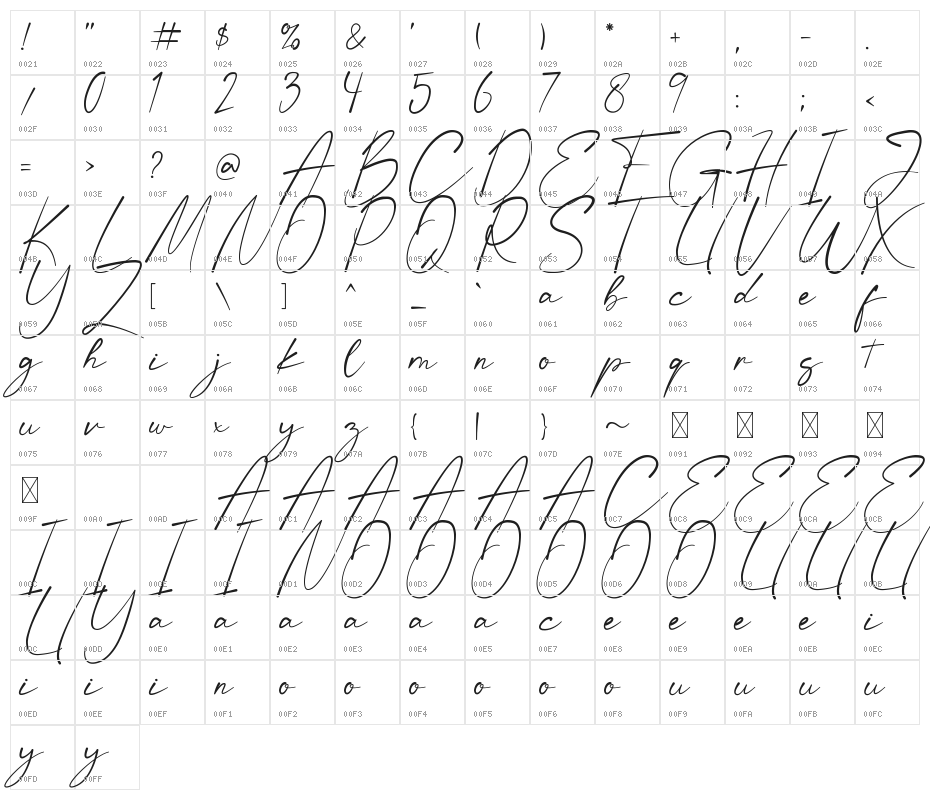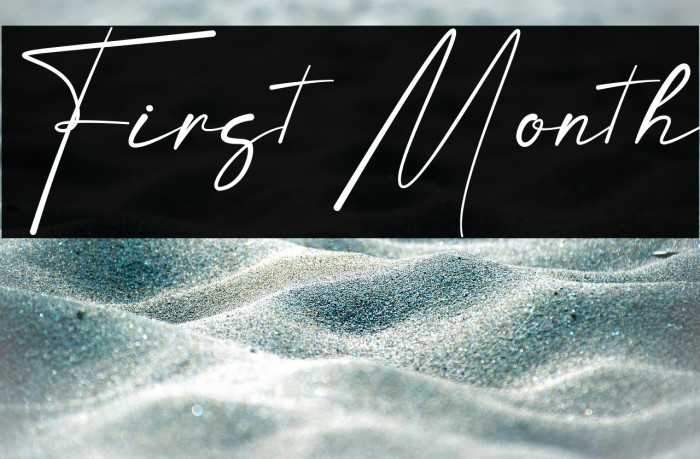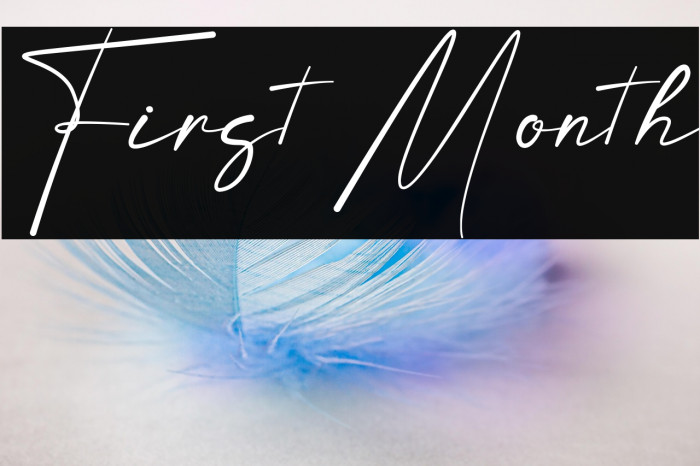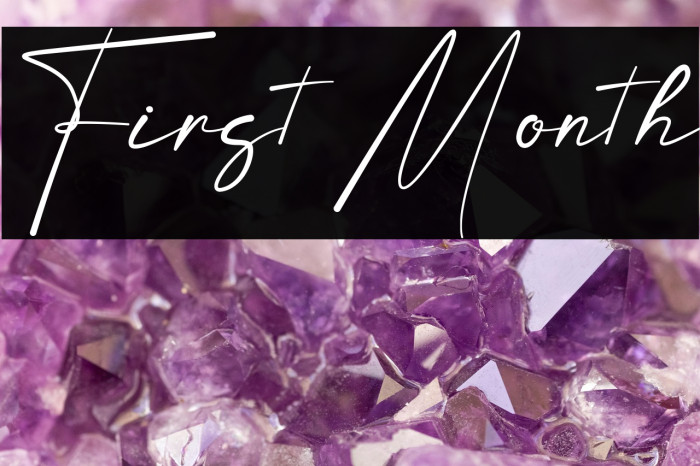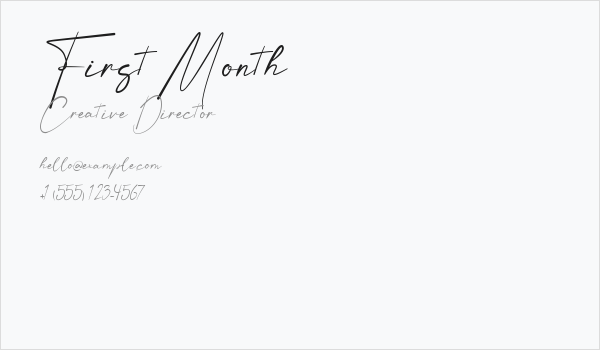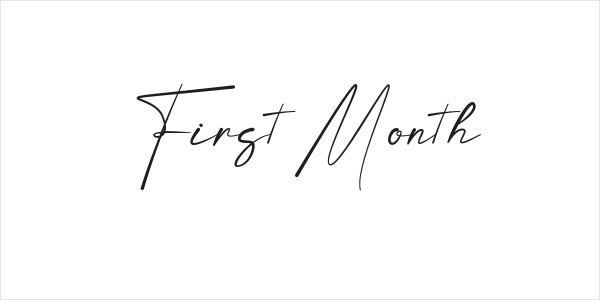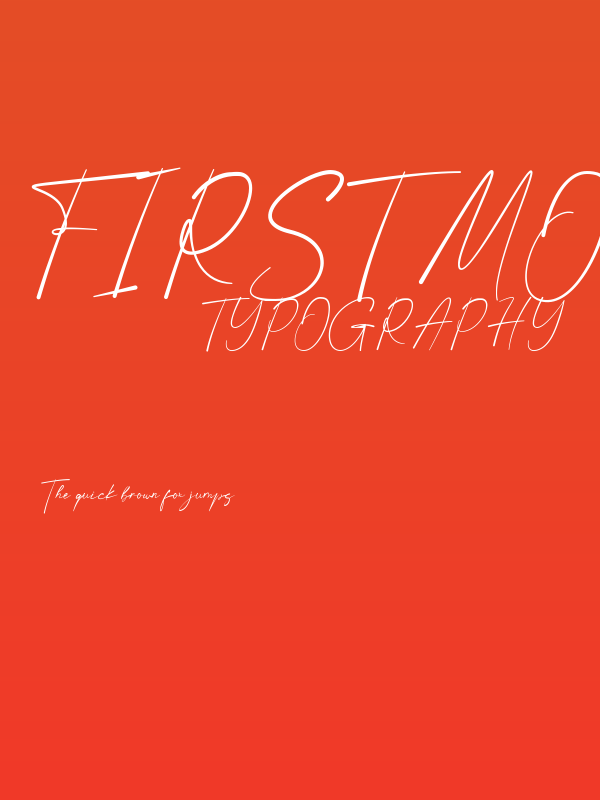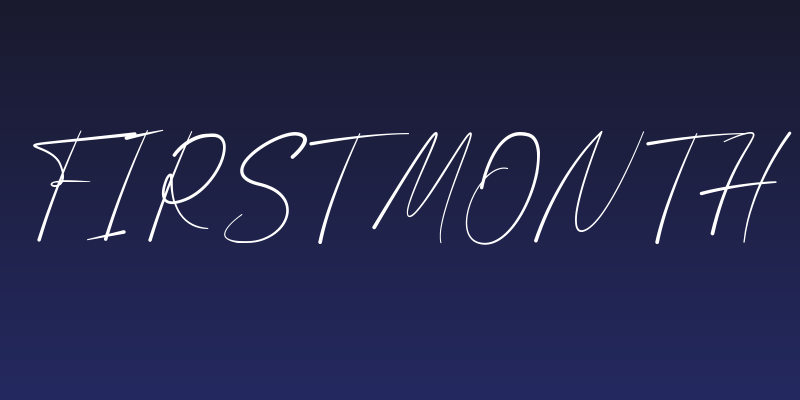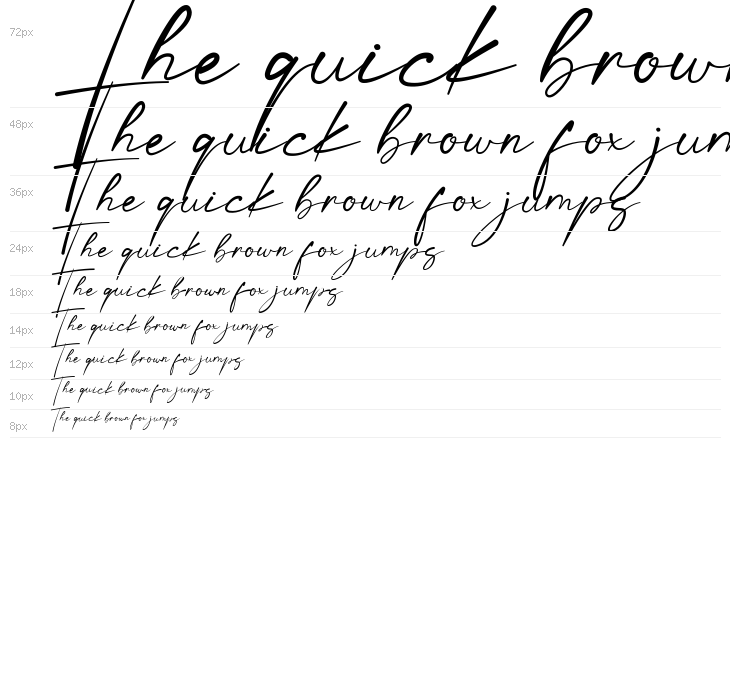
First Month Font
First Month Description
A flowing, cursive script font with a handwritten style, featuring smooth, connected letters and a casual elegance.
| Overall Style | Casual, Elegant |
| Use Case | Logos, Headlines, Decorative text |
| Proposed Projects | Invitations, greeting cards, personal branding. |